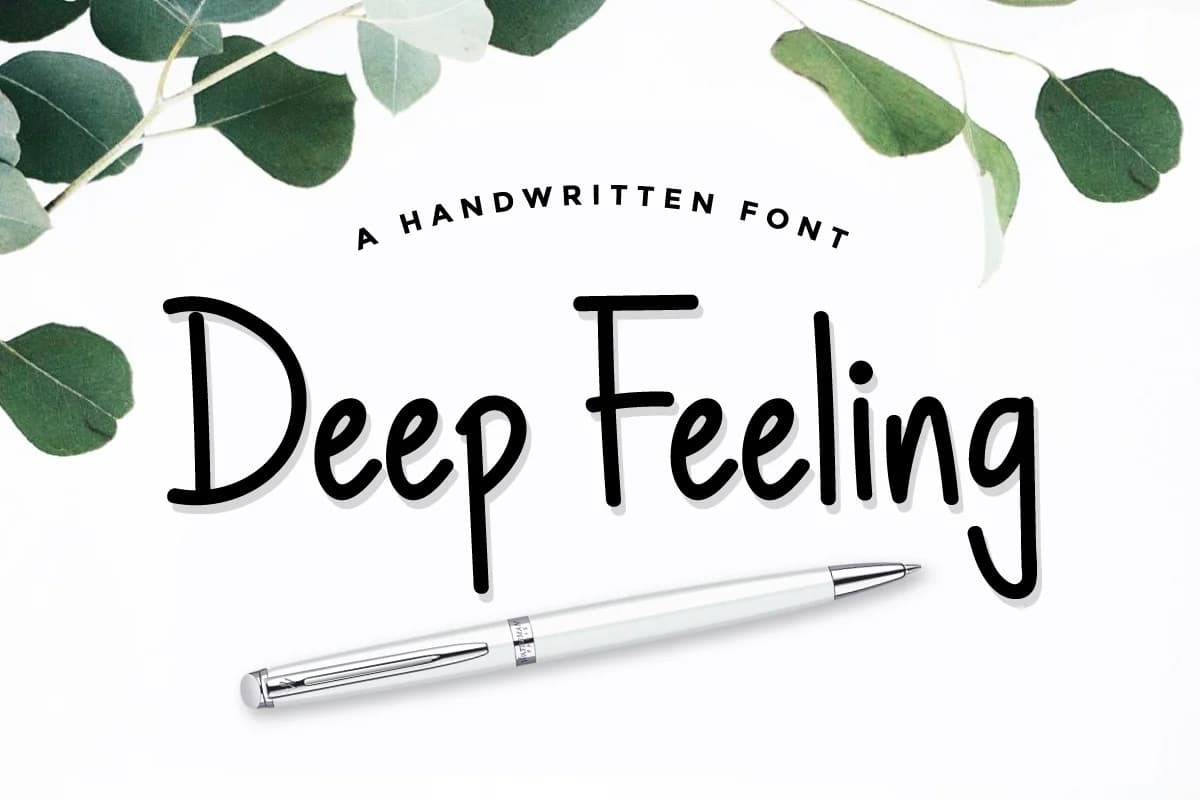
Deep Feeling Font by Kang1993 is a handwritten typeface with rounded letterforms that brings a warm, friendly character to any creative project. The soft edges and approachable styling create an inviting aesthetic perfectly suited for applications where personality and authenticity truly matter. This versatile font excels in designing wedding invitation suites, where its organic, hand-drawn quality complements heartfelt messaging and personal celebrations with genuine charm. It's equally valuable for children's book covers and illustrated storytelling layouts that benefit from a personal, accessible touch that resonates with young readers and parents alike.
Beyond editorial applications, Deep Feeling Font performs beautifully for gift tags, personalized greeting cards, and handmade product branding, where its natural legibility remains consistent even at smaller sizes. The rounded construction throughout the character set maintains visual harmony while ensuring clarity across various sizes and mediums. Social media graphics and independent packaging design also gain from this typeface's authenticity, helping small businesses and creative makers convey genuine, human-centered design with confidence. Whether you're designing for print or digital platforms, this typeface preserves its distinctive charm without compromising readability or usability.
- Elegant, Flowing, Deep Feeling
Deep Feeling Font is a script font that shines as a display or heading face. Pair it with a clean sans-serif or serif font for body text β the contrast creates a clear hierarchy while the two styles stay balanced and easy to read.
Deep Feeling Font